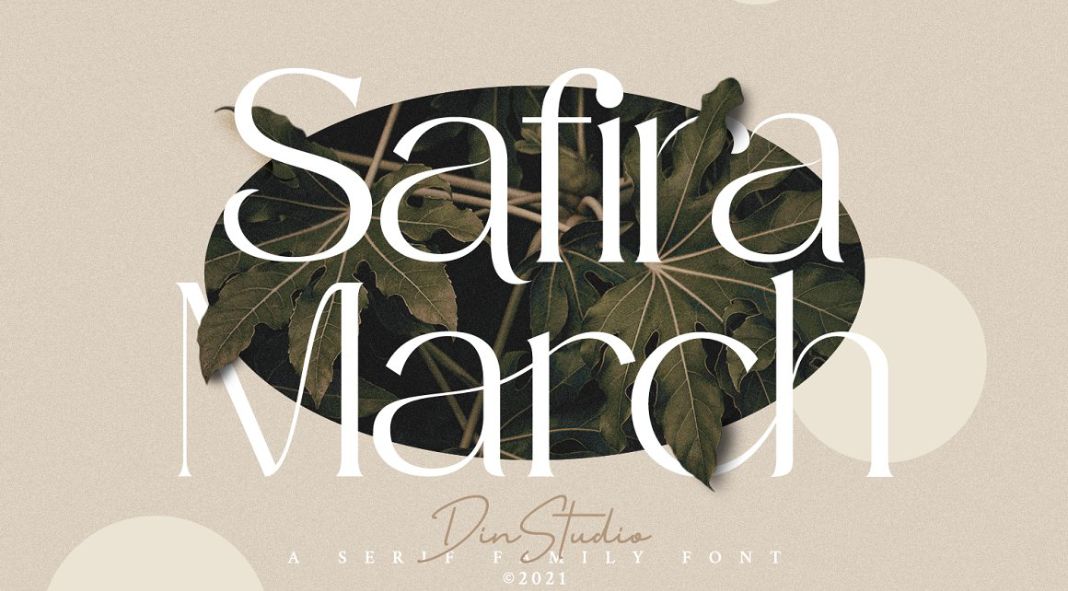
Introducing Safira March: An Elegant Serif Font Family by Din Studio.
We’re excited to introduce you to the stunning Safira March font family, crafted by the talented designers at Din Studio. With its nine distinct weights, this versatile serif typeface is perfect for captivating and impactful display use.
- The Essence of Elegance: Safira March is a typeface that effortlessly captures the essence of elegance. The carefully crafted serifs, delicate curves, and precise letterforms create a harmonious balance that oozes sophistication. Whether you’re designing for a high-end brand, editorial layout, or wedding invitation, Safira March adds a touch of refinement and luxury to any project.
- Versatility in Weights: One of the standout features of Safira March is its extensive range of weights. With nine different weights, this font family offers designers a wide spectrum of choices. Each weight retains the font’s signature elegance, ensuring that you’ll find the perfect match for any display use.
- Display Use at Its Best: Safira March is specifically tailored for display use, making it ideal for headlines, logos, branding materials, and other attention-grabbing elements. Its elegant and unique letterforms demand attention and leave a lasting impression on viewers. The font’s subtle details and sophisticated characteristics shine when used in larger sizes, creating visually striking designs.
- Exceptional Readability: While Safira March is undeniably captivating, it never compromises on readability. Even in its lighter weights, the font maintains a clarity that ensures ease of reading across various applications. This balance between elegance and legibility makes Safira March an excellent choice for both print and digital mediums.
Safira March, the exquisite serif font family by Din Studio, is a true testament to the power of typography in design. Its elegance, versatility in weights, and exceptional readability make it a must-have for designers seeking to make a bold and sophisticated statement. Whether you’re crafting an editorial layout, a logo, or a high-end branding project, Safira March will elevate your designs to new heights, capturing attention and leaving a lasting impression.
With its ability to effortlessly blend classic and contemporary elements, Safira March is a timeless addition to any designer’s toolkit. Embrace the grace and beauty of Safira March and let your creativity soar with this remarkable serif font family.